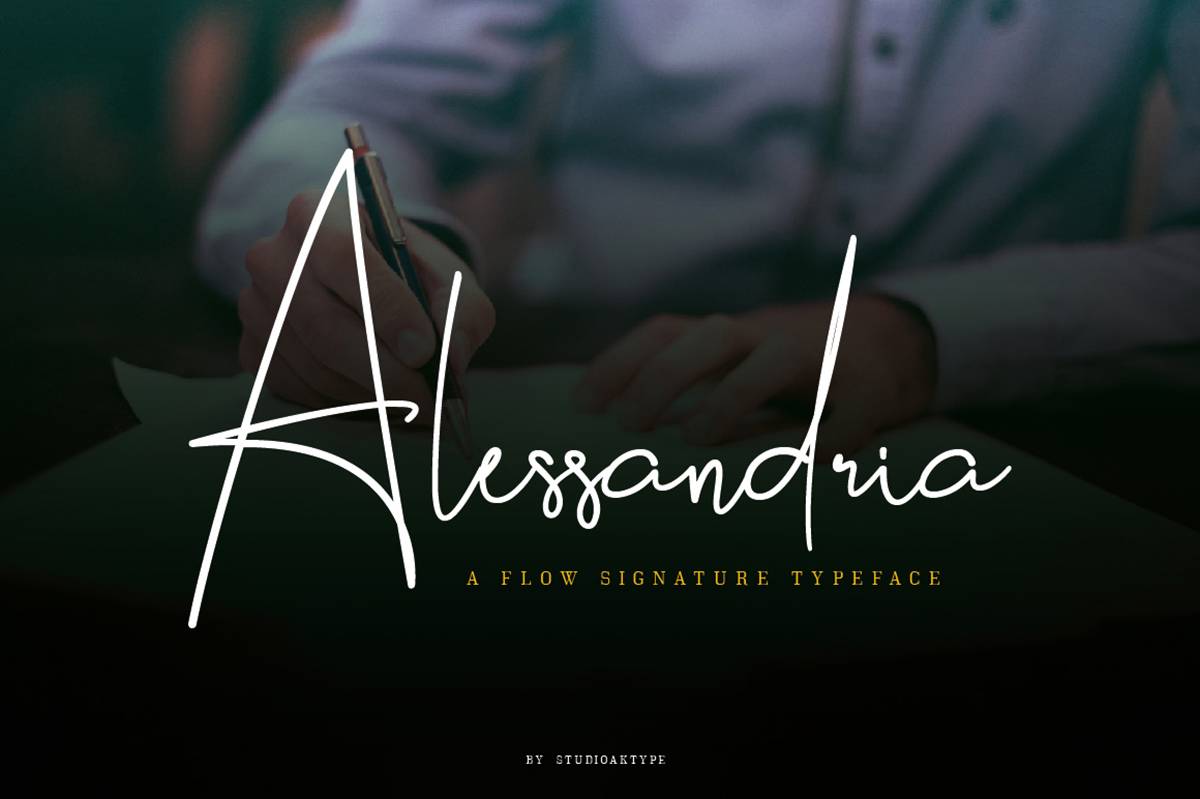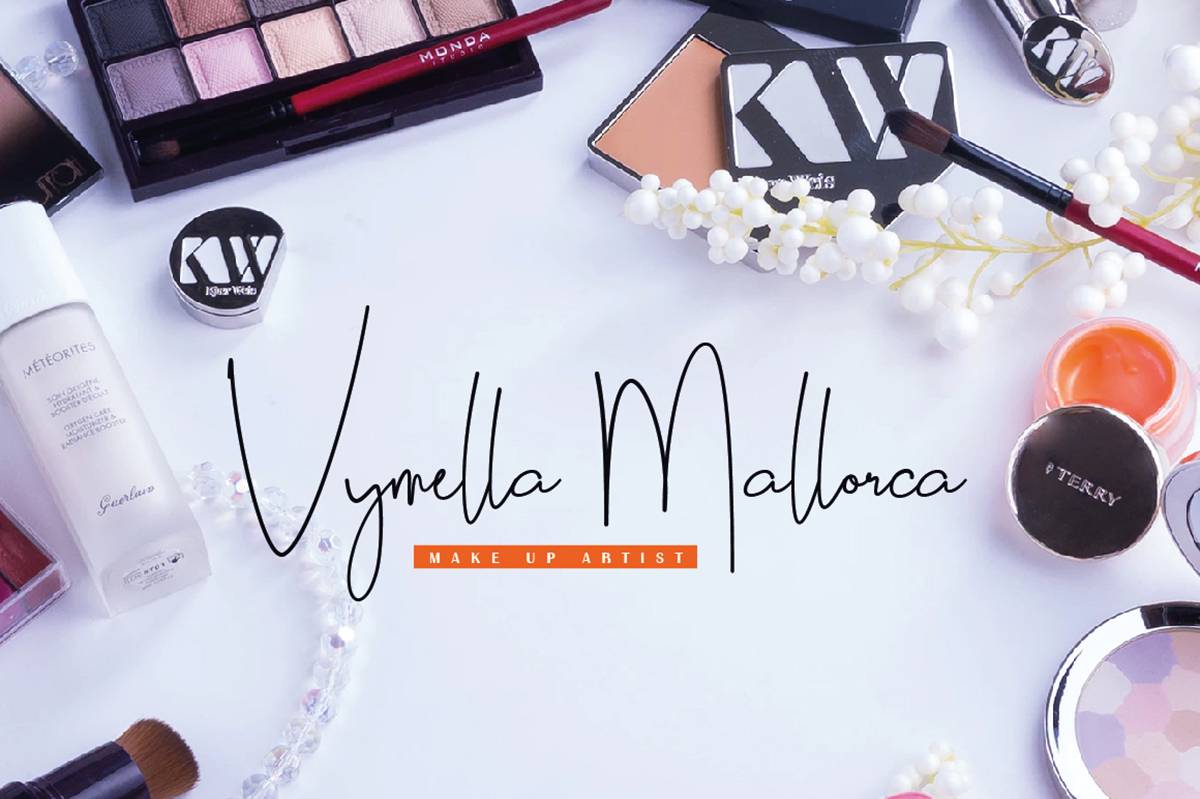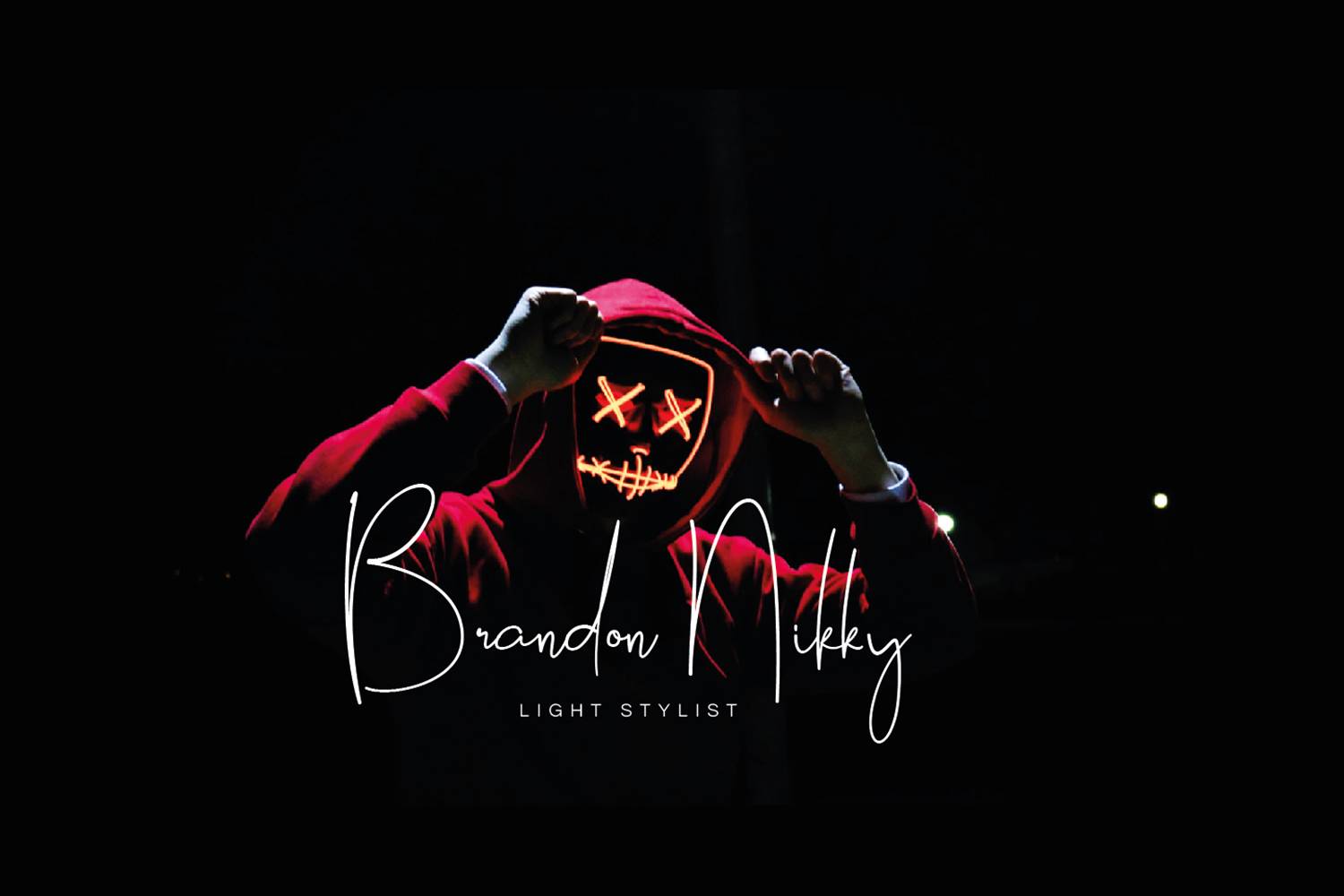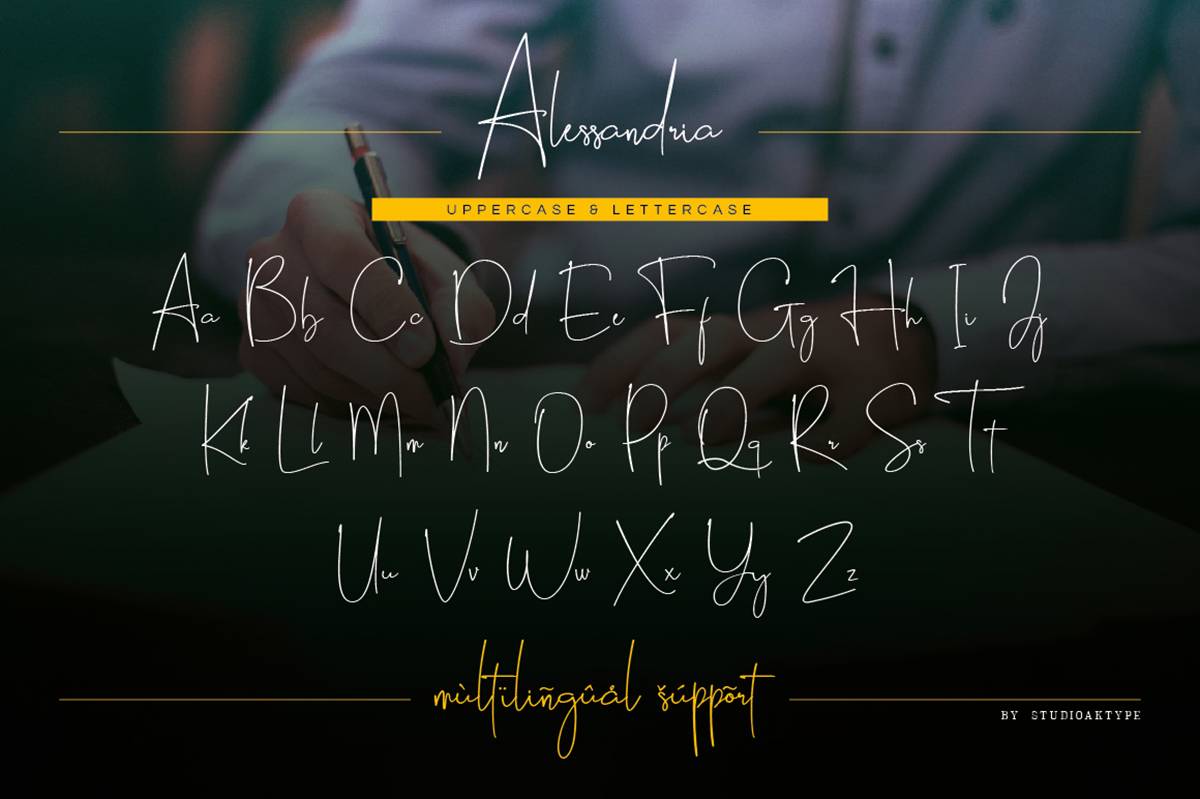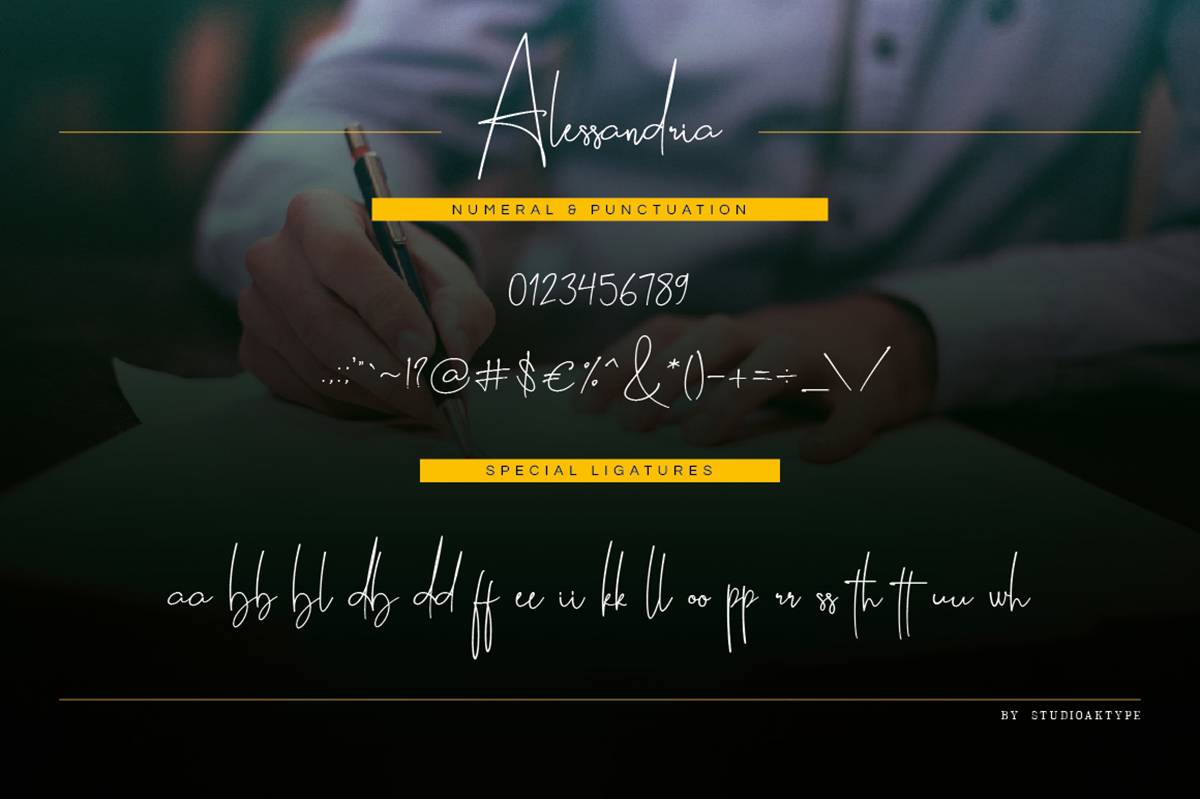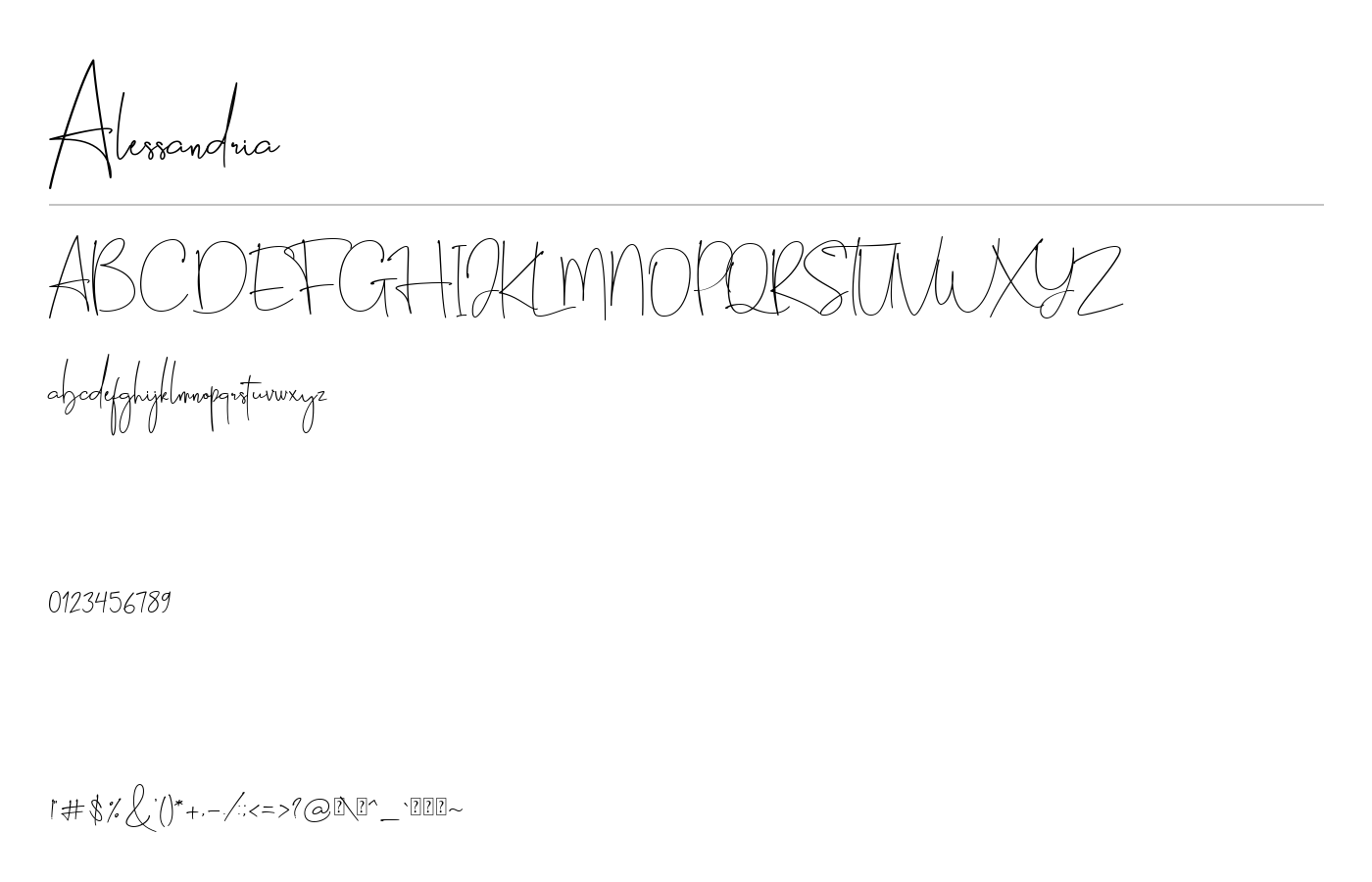
Alessandria is a delicate, handwritten script font characterized by its tall, narrow letterforms and fine, airy strokes that give it a light and whimsical feel. Its elegant, slightly irregular lines convey a sense of personal touch and creativity, making it ideal for designs that want to express artistry, charm, or a modern casual elegance. This font works beautifully in invitations, branding for creative businesses, or any project seeking a stylish yet intimate vibe.
Alessandria Font
About Alessandria Font